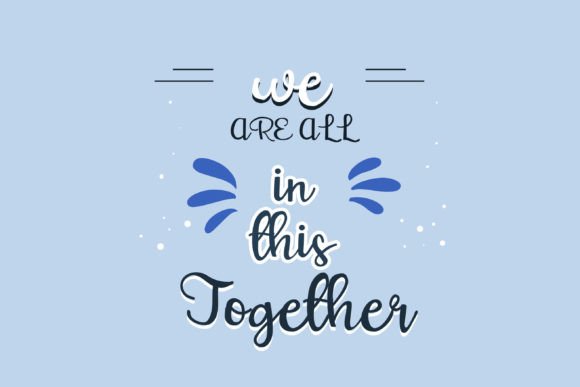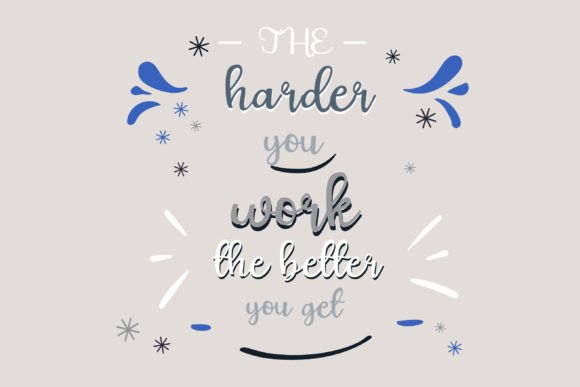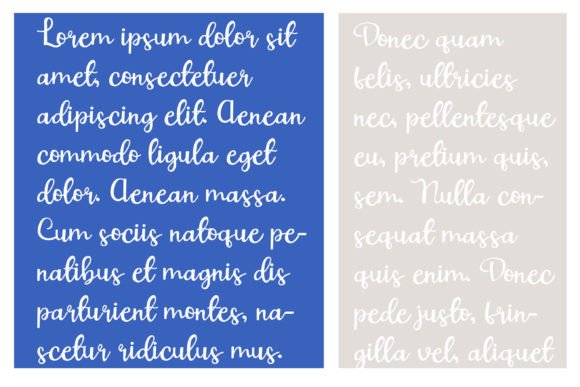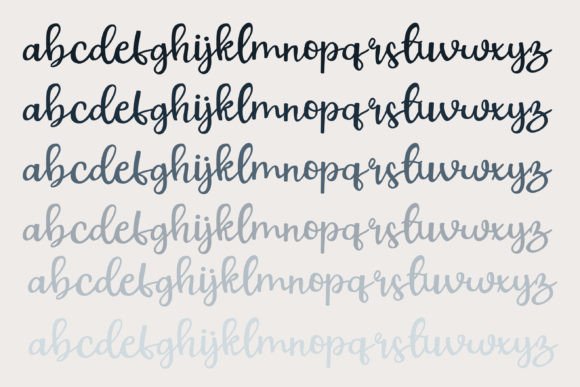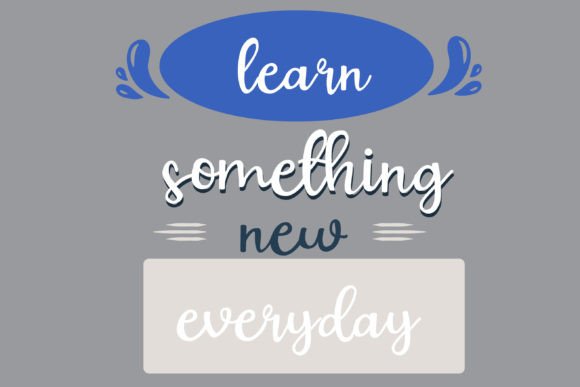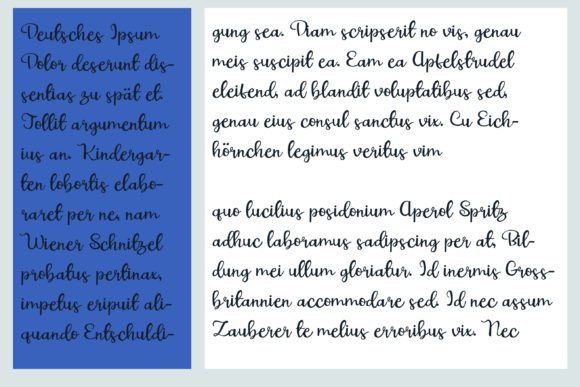
Have you ever sat down with a blank sheet of paper, a pen in hand, and let your imagination run wild? The sound of scribbling and the flow of ideas is music to the ears of designers everywhere. For many of us, it’s this moment of pure creativity that sparks inspiration for our next project.
That’s exactly what the Bungee Jump Font is all about – capturing the essence of handwritten script in a beautiful, modern design. This casual cursive font with print-like uppercase is perfect for a wide range of projects, from logos and branding to invitations and wedding designs. Whether you’re working on a social media campaign or designing product packaging, Bungee Jump Font adds a personal touch that’s hard to replicate with traditional fonts.
For designers, Bungee Jump Font is a valuable addition to any toolkit. Its unique blend of cursive and print elements makes it a versatile choice for a variety of projects, ensuring that your designs stand out from the crowd.
Bungee Jump Font Key Features
- Size: The font family consists of multiple weights, ranging from Thin to Black, providing flexibility for various design applications.
- Unique Characteristics: This font features a distinctive, dynamic design with exaggerated lines and curves, giving it a bouncy, energetic feel.
- Legibility: Despite its unconventional design, Bungee Jump Font is surprisingly legible, making it suitable for body text and display use.
- Style Variations: The font family includes several style variations, including regular, italic, bold, and bold italic, allowing designers to create a wide range of visual effects.
Bungee Jump Font Review
I recently had the chance to work with the Bungee Jump Font, and I must say it’s a unique and quirky addition to any design project. Here are some of the things that work well:
- ✨ The font’s irregularities and imperfections give it a hand-drawn feel that can add a touch of personality to your designs.
- ✨ The Bungee Jump Font is highly customizable, with a wide range of font sizes and styles to choose from.
- ✨ It’s a great choice for headings and titles, as it can help draw attention and create a sense of drama.
- ⚠️ The font may not be the best choice for body text, as it can be difficult to read in smaller sizes.
- ⚠️ The font’s irregularities can sometimes make it difficult to align properly, requiring some extra effort to get it just right.
Overall, I think the Bungee Jump Font is a great addition to any design project that requires a bit of flair and personality. While it may not be the best choice for every situation, it’s definitely worth considering for projects that need a bit of drama and visual interest.
The Bungee Jump font is ideal for creating bold, energetic, and playful designs. Use it for:
– Headlines and titles
– Promotional materials
– Event invitations
Remember to use the Bungee Jump font in moderation to avoid overwhelming your design. Experiment with different font sizes, colors, and combinations to get the most out of this versatile font.
Q: What is the recommended font size for Bungee Jump Font?
The recommended font size for Bungee Jump Font is between 14pt and 24pt. However, the optimal font size will depend on the specific use case and the desired level of readability. It’s always a good idea to test the font at different sizes to find the most effective size for your design.